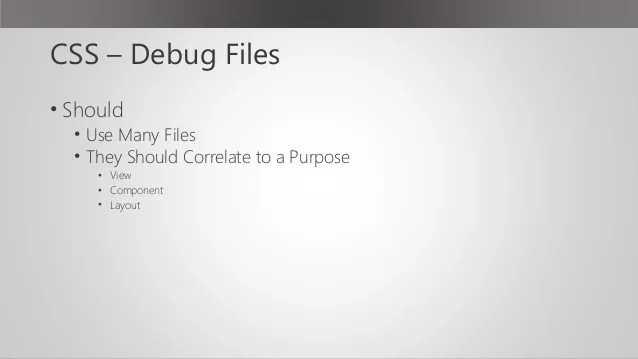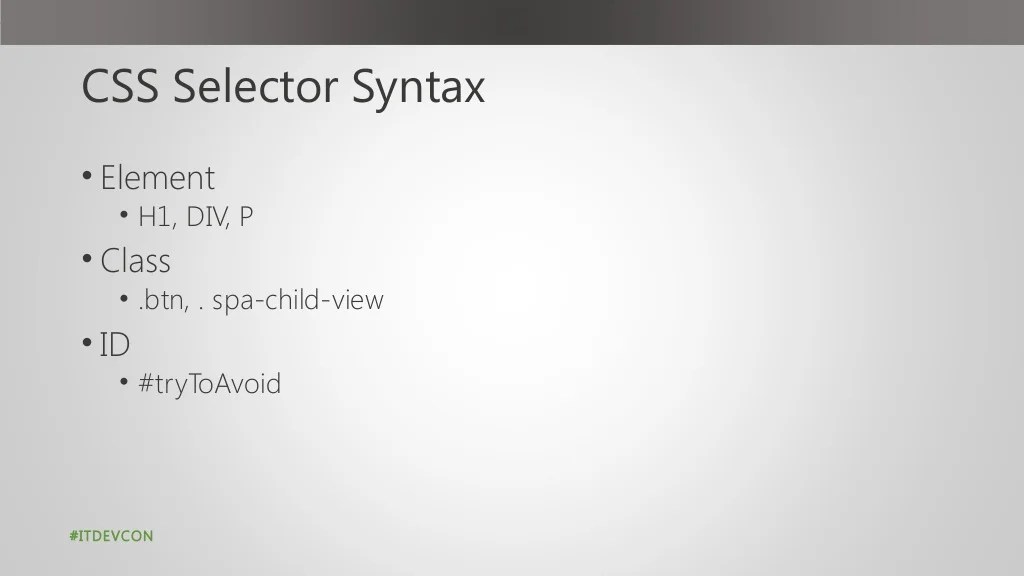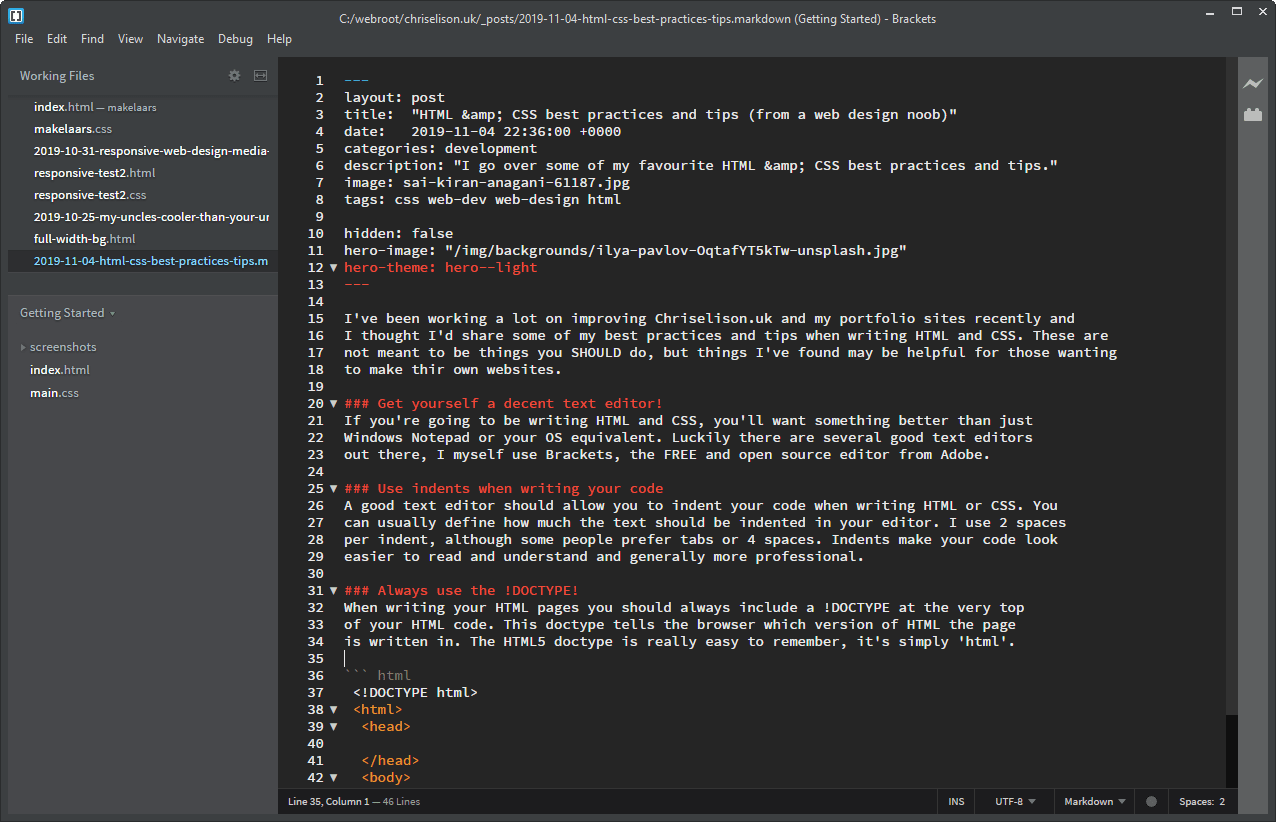
Most of the css tutorials do not set font size this way. Absolute units are static sizes that are not change according to the device or window sizes.
List Of Font Best Practices Css With New Ideas, } in many cases, that's all you'll need. It’s common practice to add this rule as a reset to your css.
Great readability of your css makes it much easier to maintain in the future, as you'll be able to find elements. There are a variety of ways in which web fonts impact performance: Color is called a property, and blue is called a value. Designing web typography is all about legibility and readability.
HTML & CSS best practices and tips (from a web design noob You’ll be able to change the entire design of your website by simply modifying the css without ever touching the markup language.
I am trying to understand this font declaration in a css template that i am using and learning from. } use rem for font sizes and css styles. Hi all, i am reading a book on css and have some knowledge in css, but one thing i am having difficulty with is discerning what the best practice is. We’ll go over the principles of typography and the css properties that control them, as well as handy tips to get.
One of the main advantages of css is the ability to separate designs from content. We’ll cover a range of practical and useful topics, like how to choose and use custom fonts on the web, but more importantly, how to lay text out to create a pleasant user experience. 10 html and css good practices 🐅🐅. Let’s walk through the three sections of the formula. The CSS Best Practices to Follow and the Bad Habits to Avoid.
Just like any other language, it's a great idea to comment our code. I am trying to understand this font declaration in a css template that i am using and learning from. } use rem for font sizes and css styles. It will help you keep the cascading part of css in mind, which sets your stylesheets up to take advantage of style inheritance. CSS Reference Guide textdecoration LogRocket Blog.
Body fonts should be about 16px. The curly brackets { } indicate the start and end of the declaration block where we describe the styles of our css rule. In order to blend in with the font family chosen by the application, do not set the font family in the css. The property and value together, like color: Css best practices style guide and tips.
By limiting your number of colors and only use one font type, you can create a. Color is called a property, and blue is called a value. Absolute units are static sizes that are not change according to the device or window sizes. Body fonts should be about 16px. Css best practices style guide and tips.
10 html and css good practices 🐅🐅. Absolute units are static sizes that are not change according to the device or window sizes. } what is the 300 number doing? In css there are five generic font families: Css Link With Background Image And Text Images Poster.
Consider using rem (root em) for font sizes and other css style properties where relative sizing allows your. Try to create a design without too much information. Comments are used in css to explain a block of code or to make temporary changes during development. Check out the code below. CSS Italic How Basic CSS Code Works and How to Italicize Your Font.
By excluding excess information, you can make your signature more effective i.e. Using custom fonts in a performant way is becoming far easier. Use a coherent structure rather than dropping in id and classes in the order in which they come to mind. Another common rule of thumb is to also keep your colors and fonts simple. Good and Bad CSS Practices for Beginners.
The h1 part is called a selector, because it selects the html elements that the rule applies to. This ensures that the resulting font. One of the best practices that we can implement for css code is by putting a comment for each group of css code. Serif fonts have a small stroke at the edges of each letter. css Best Practice to include FontAwesome at BEST Performance Stack.
This is intended as a practical guide for developers to learn web typography. It will help you keep the cascading part of css in mind, which sets your stylesheets up to take advantage of style inheritance. I am trying to understand this font declaration in a css template that i am using and learning from. This article will detail the 10 practices to improve the quality of your html and css code making it much more understandable for you as well as others, reusable and. HTML & CSS best practices and tips (from a web design noob.
72pt = 1 inch (1/72) This article will detail the 10 practices to improve the quality of your html and css code making it much more understandable for you as well as others, reusable and. Hi all, i am reading a book on css and have some knowledge in css, but one thing i am having difficulty with is discerning what the best practice is. Color is called a property, and blue is called a value. Correcting inlining fonts in CSS Fasterize.
Adding Tag Name To An Id Or Class Name Is Not A Good Practice Since It Would Slow Down The Matching Process Unnecessarily.
The curly brackets { } indicate the start and end of the declaration block where we describe the styles of our css rule. They create a sense of formality and elegance. In css there are five generic font families: Just like any other language, it's a great idea to comment our code.